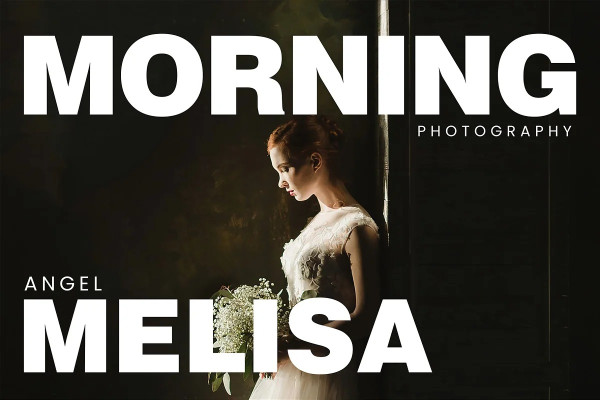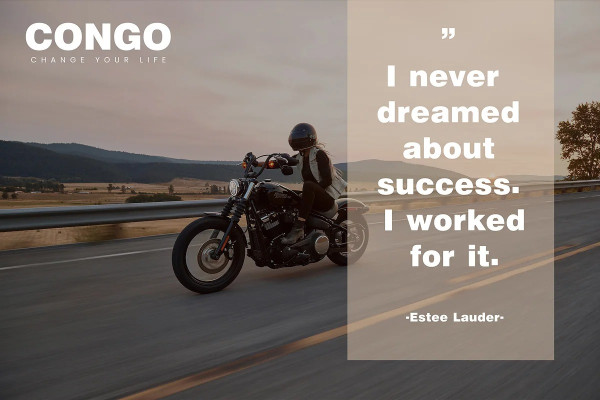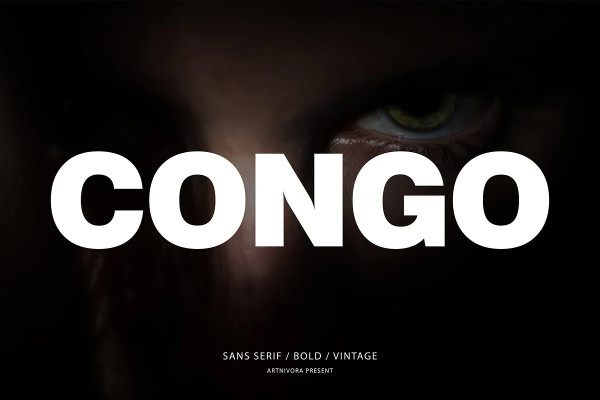
Congo Font
Congo Font, a simple and sans serif font. So perfect for you who needs a typeface for logo designs, magazine, social media, brochure, and many more.